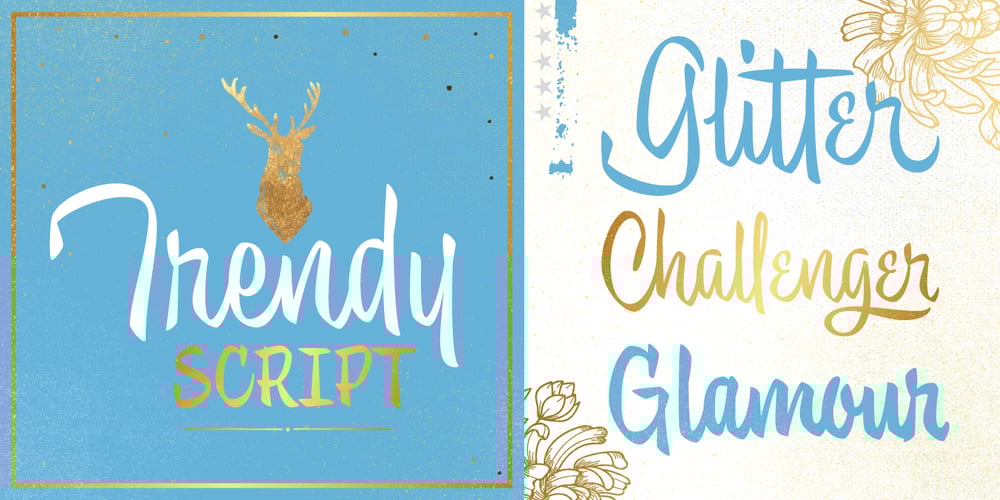
Trendy Font Family was designed by Felipe Calderón and published by Estudio Calderon. Trendy contains 5 styles and family package options. Welcome fashionistas, we have designed a type family based on fashion and current trends. Trendy, the new font of our studio follows the same design line that represents us, processes with brush lettering, variety of characters, OpenType programming and a special touch that reflects a boho chic style. The soul of Trendy is inspired in the logotype of one of the most influential type foundries around the world. Because of its great contribution in graphic design we have decided to pay tribute by expressing our gratitude for being an icon in the design world, the most recognized type designers of the last years have been part of that type foundry and for being source of inspiration for new designers. Trendy represents a fashion house, a place that breathes fashion, there are inside 5 determining variables for designing time: Regular, Bold, Black, Display & Stencil. Discover this new way to see the glamour world all include in a type family. To know more about our new project, Trendy, visit our web site www.estudiocalderon.co and our portafolio in Behance.